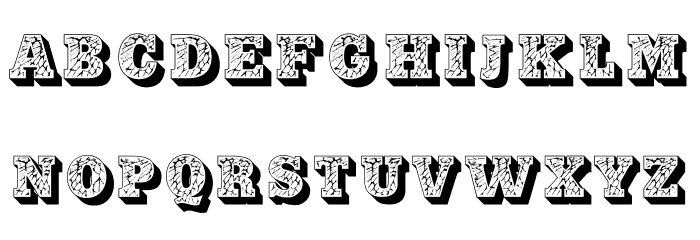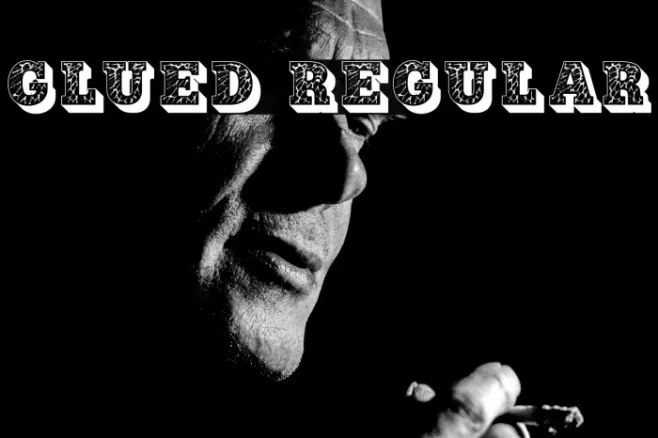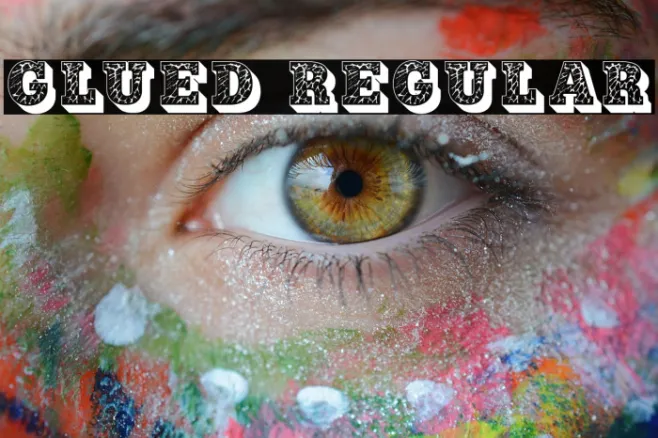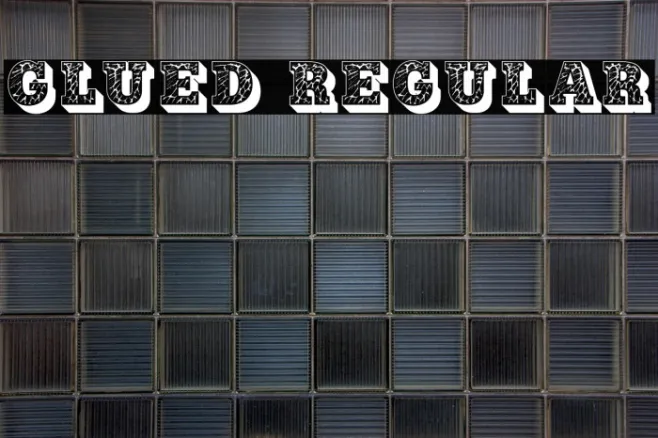
Glued Regular Font
This font features a bold, decorative style with a unique textured pattern inside each character, giving it a dynamic and eye-catching appearance. The letters are outlined with a thick black shadow, enhancing the three-dimensional effect and making them stand out prominently. The uppercase letters are consistent in height and width, providing a uniform look. The intricate design within each letter adds a playful and artistic touch, making it suitable for creative and expressive projects.
A bold, decorative font with textured patterns and a 3D shadow effect.
- Proposed Projects: Ideal for posters, album covers, event flyers, and any project requiring a bold, artistic statement.